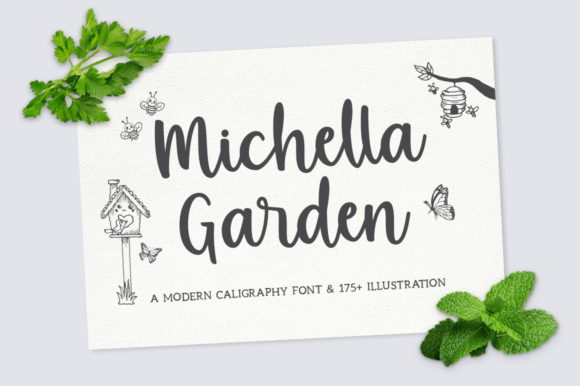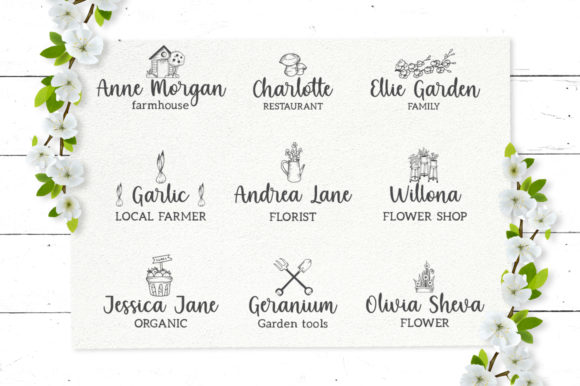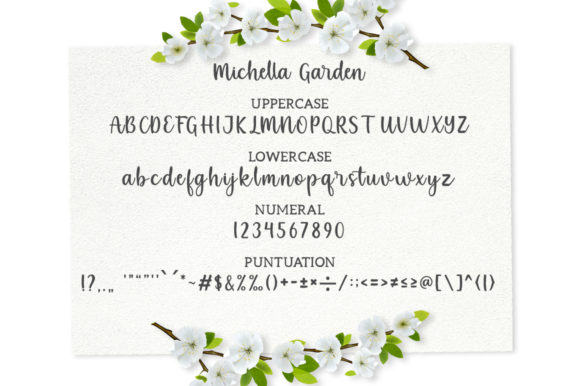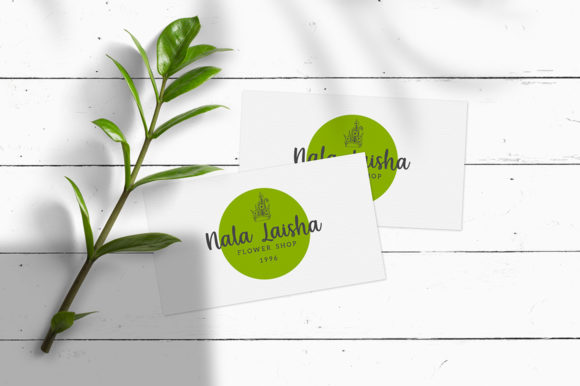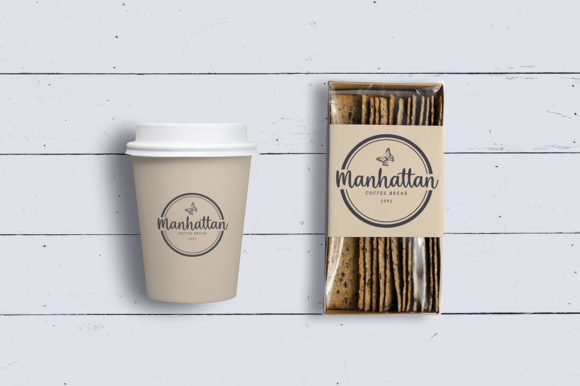
Michella Garden Font
About Michella Garden Font
Michella Garden is a magical script font carefully created with a touch of elegance. This is a beautiful combination tails and authentic calligraphy. It features an incredibly modern style, while still keeping a friendly feel. Michella Garden is the perfect font for making original and outstanding designs.